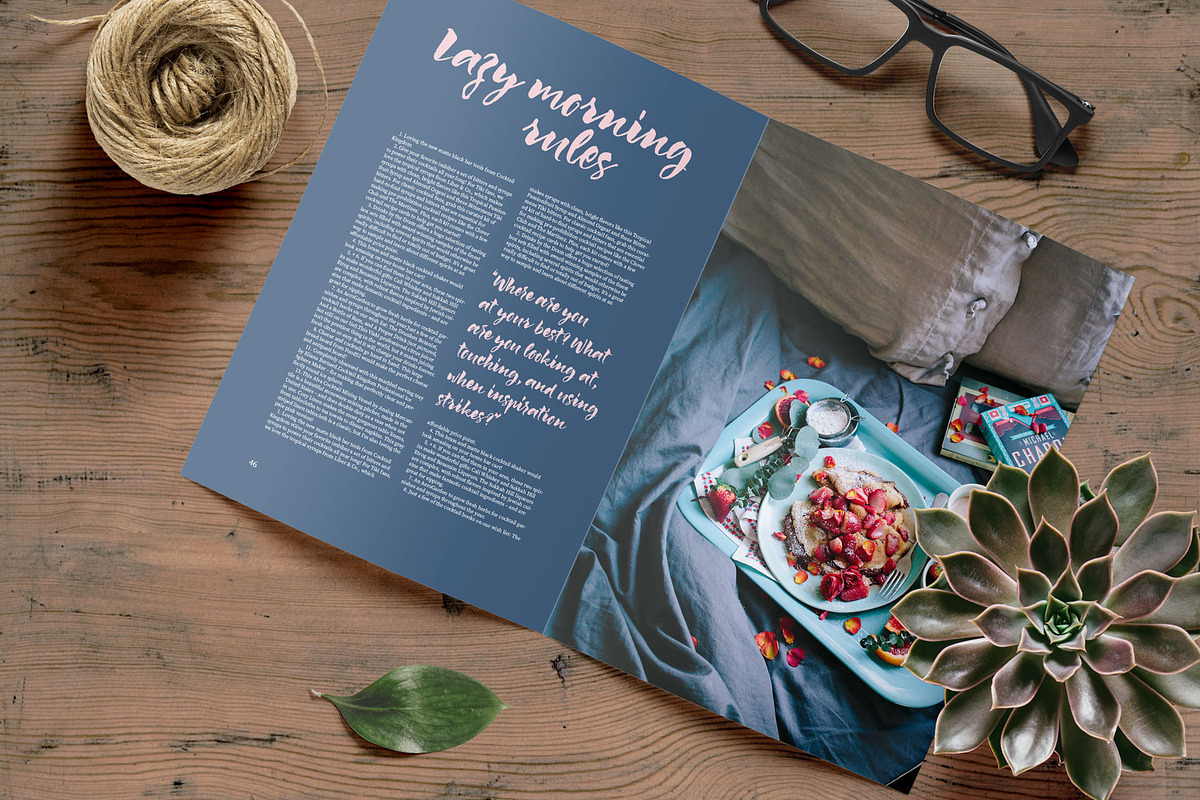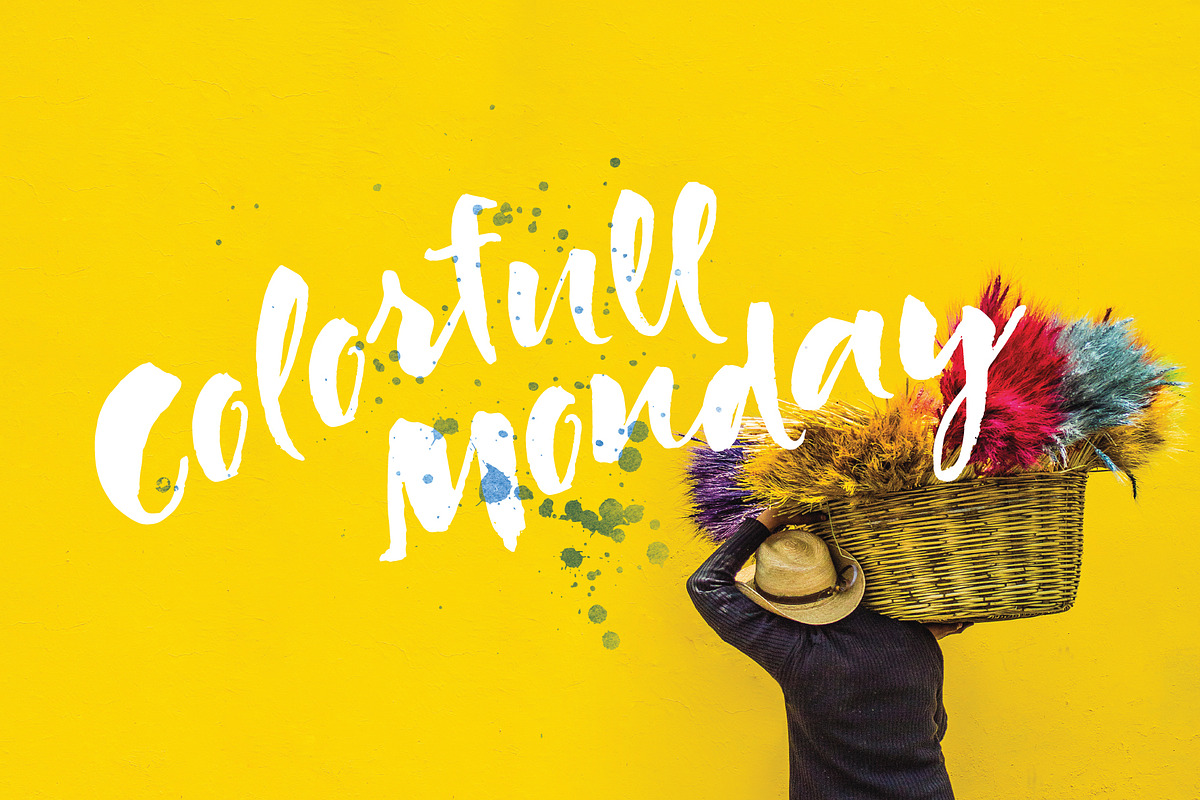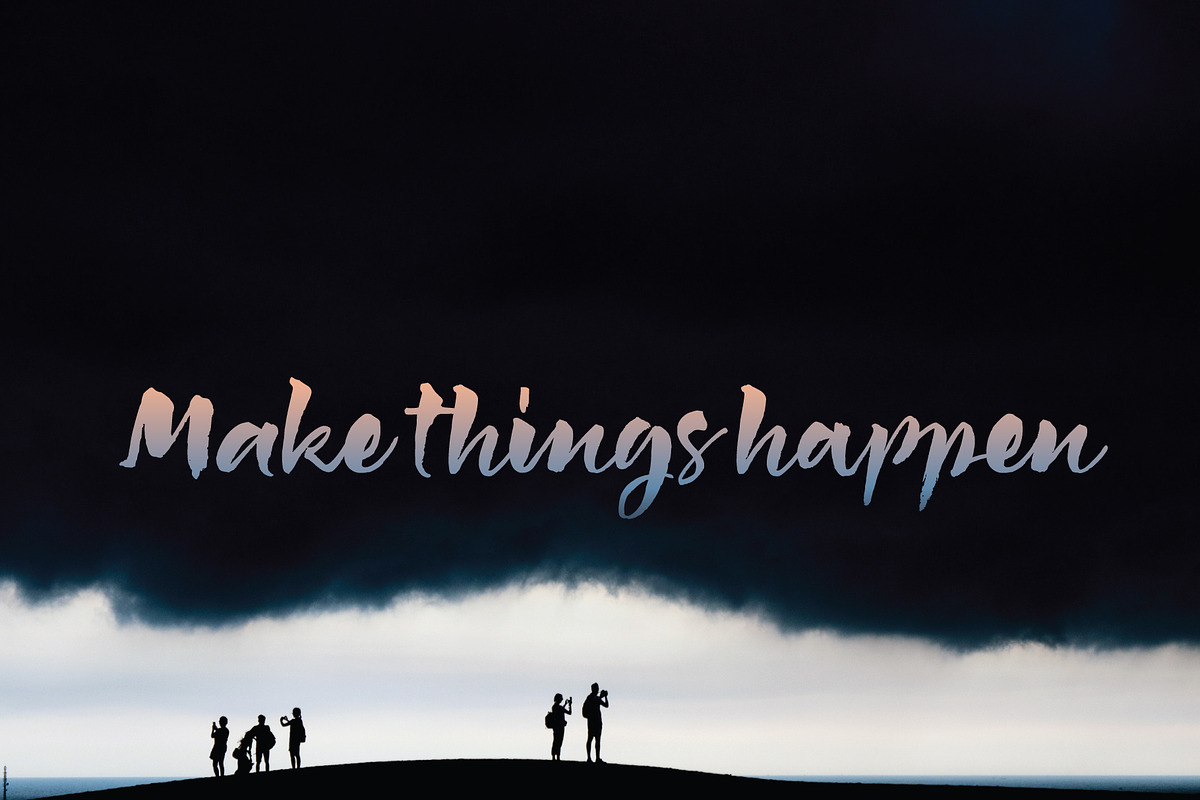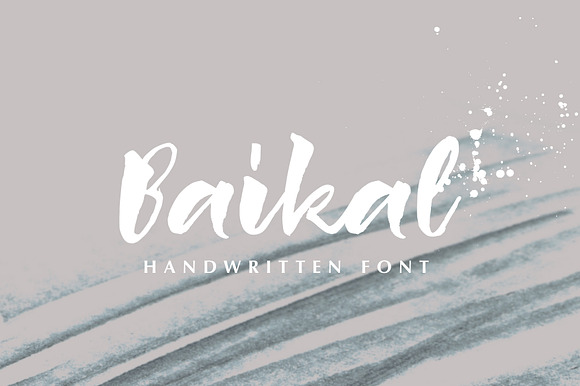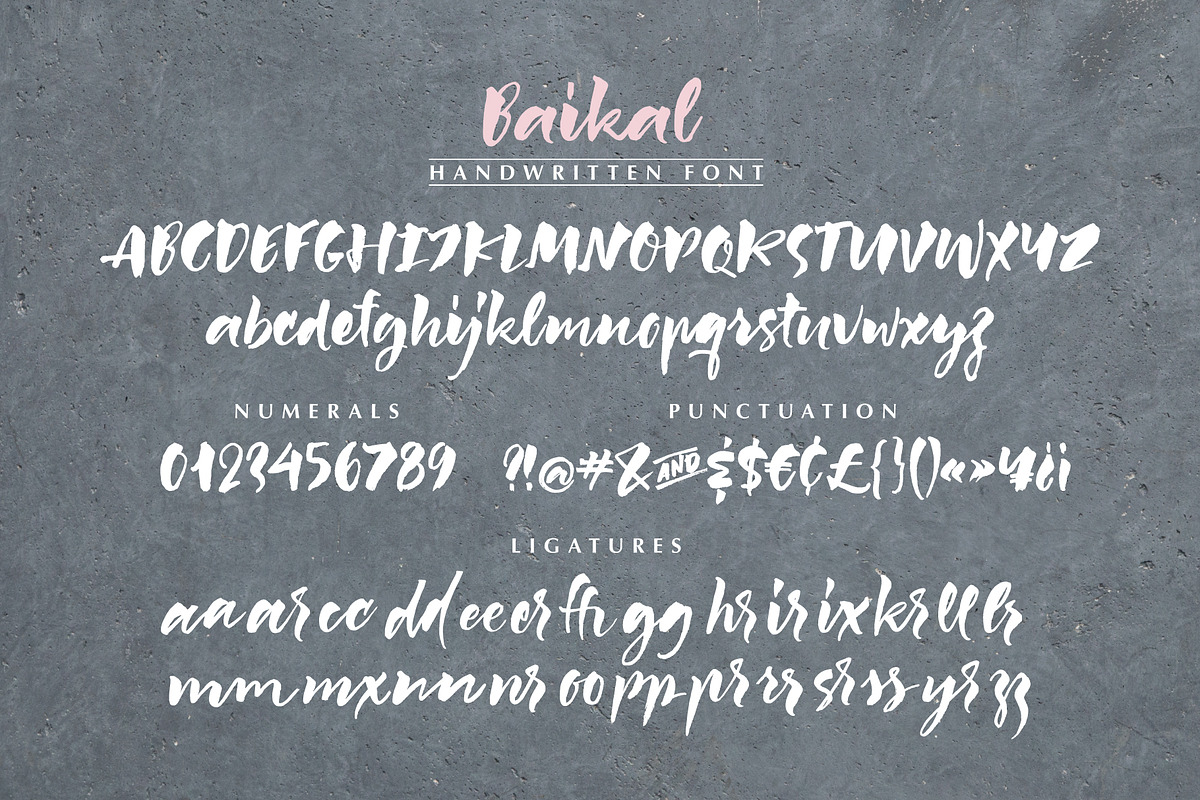
Baikal Handwritten Font with bonus
I'm pleased to introduce you my new handwritten font Baikal. It been inspired by my upcoming move to Russia from very sunny and warm Texas. I'll miss this wonderful place and the US. Baikal is a bold calligraphic font with strong character. Creating it I was imaging ice lake in the heart of Russia. I added some splashes and they work great together. I hope you will be inspired.
Language Support: Spanish, German, Portuguese, Italian, French, Polish.